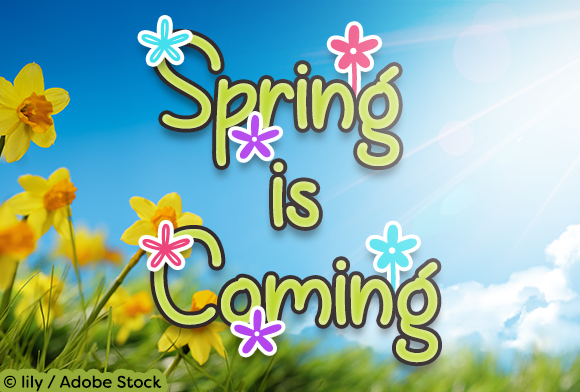
Spring is Coming Font
About Spring is Coming Font
Spring is Coming is a warm & friendly, handwritten font that is great for your Spring projects!
SPECIAL SYMBOLS
Type * (asterisk) for the open flower
Type ^ (caret) for the flower with stem
Type (backslash) for the solid flower